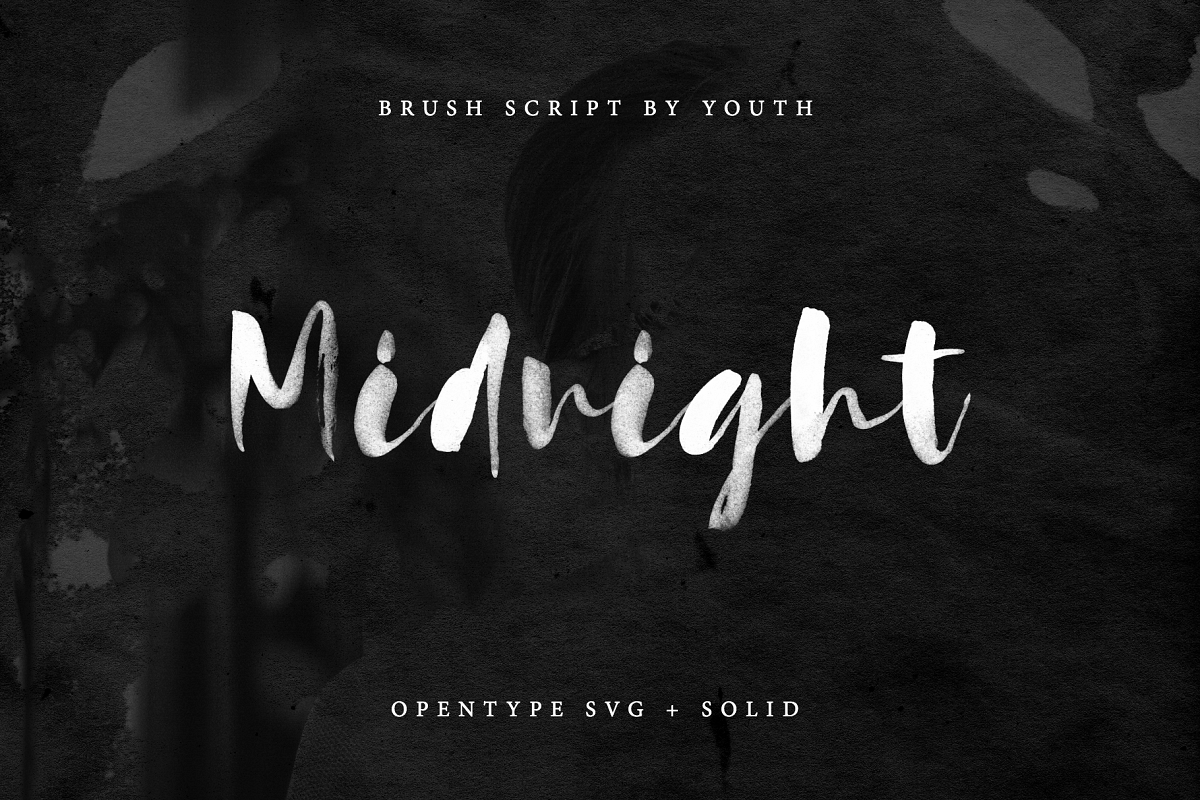
Midnight handwritten font svg
- You do not need special software for Solid versions of the fontThe font was carefully drawn in acrylic and transferred to the digital version to create beautiful typographical designs.
Midnight
SVG Font are made by converting hand painted lettering , unchanged, including all its transparency and high resolution detail - into an actual font - as you type your letters out, it looks like you have just hand painted them.